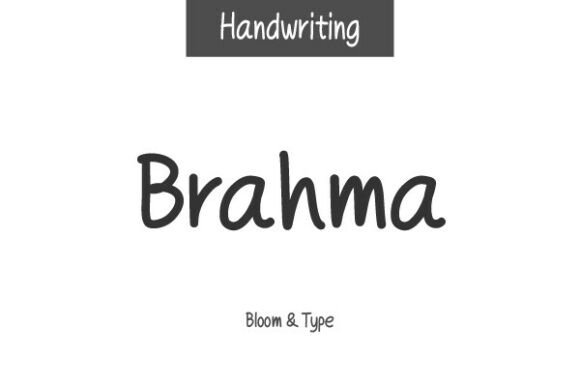
The Designer’s Delight: How Brahma Font Became My Go-To for Creative Projects
I still remember the frustration of working on a branding project for a new coffee shop, searching for the perfect font that would capture the warmth and friendliness of their brand. As I scrolled through page after page of font options, I couldn’t help but feel like I was stuck in a design rut. That was until I stumbled upon Brahma Font – a clean and playful handwritten font that instantly brought my design to life.
An Honest Review of Brahma Font
So, what makes Brahma Font so special? Let’s dive into the good stuff and a few quirks I’ve discovered along the way.
- ✨ Rounded curves and smooth lines: Brahma’s casual handwritten style gives it a natural and friendly feel that’s perfect for a wide range of creative projects.
- ✅ Easy to read: The font’s clean and simple design makes it easy on the eyes, even at smaller sizes.
- 💡 Versatile: From logos and branding to packaging, posters, and social media graphics, Brahma Font adapts seamlessly to different design contexts.
While Brahma Font is an excellent choice for many design projects, there are a few things to keep in mind:
- ⚠️ Limited formal or corporate use: Due to its casual and playful nature, Brahma Font might not be the best fit for formal or corporate designs that require a more professional tone.
- 🤔 Some letter spacing adjustments may be needed: Depending on the specific design and font size, you might need to tweak the letter spacing to achieve optimal readability.
A Practical Guide to Using Brahma Font
- Experiment with OpenType features, such as stylistic alternates and glyphs, to add some personality to your text.
- Explore the Glyphs panel to access additional characters and OpenType features.
If you’re looking for more font options with a similar personality, here are a few alternatives to consider:
- Lato: A modern sans-serif font with a friendly and approachable feel, perfect for digital designs and publications.
- Merriweather: A classic serif font with a elegant and sophisticated personality, ideal for formal designs and print materials.
- Pacifico: A beautiful script font with a relaxed and casual vibe, great for creative projects that require a touch of elegance.
- Great Vibes: A fun and energetic script font with a playful personality, suitable for designs that need a dash of whimsy.
The Story Behind Brahma Font
While the true origins of Brahma Font remain a mystery, it’s easy to imagine that its designer was inspired by the beauty of handwritten letters and the need for a more approachable and friendly font. Perhaps the designer, fueled by a passion for creativity and a love for typography, set out to craft a font that would bring a sense of warmth and personality to designs.
| Font Name | Brahma Font |
| Author | Bloom & Type |
Q: What type of projects is Brahma Font best suited for?
A: Brahma Font is versatile and works well in various design projects, including logos, branding, packaging, posters, and social media graphics.
Q: Is Brahma Font available in different weights or styles?
A: While Brahma Font might not have multiple weights or styles, its clean and simple design makes it easy to use in various contexts and pair with other fonts.